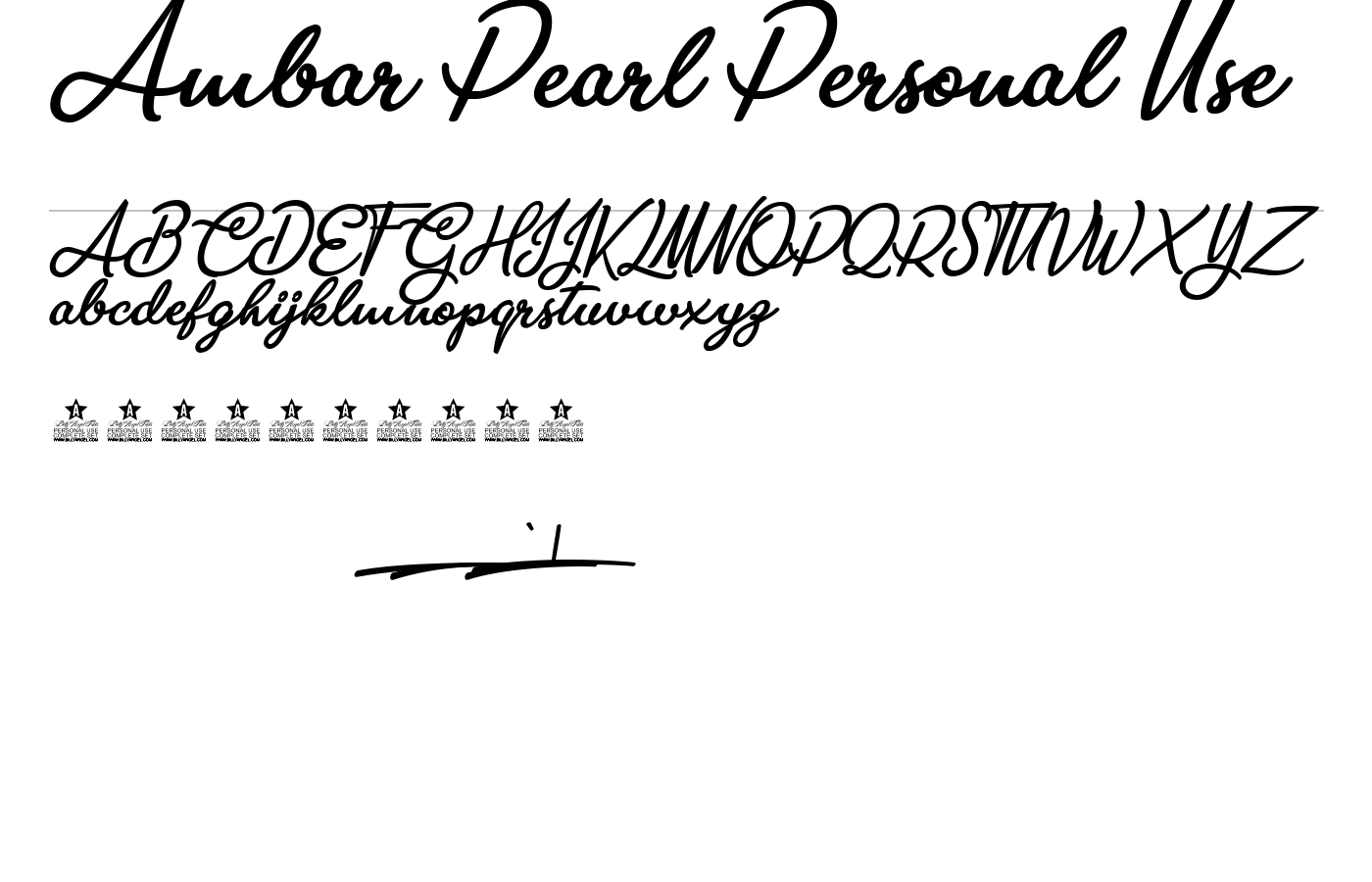
Ambar Pearl Personal Use is an elegant script font with a smooth, flowing style and medium weight, offering a sophisticated handwritten feel. Its slender, connected letterforms and subtle curvature give it a refined yet approachable personality, making it ideal for invitations, branding, and stylish headlines where a touch of graceful charm is desired. This font works best in contexts that seek to convey warmth and elegance without sacrificing readability.
Ambar Pearl Personal Use Font
About Ambar Pearl Personal Use Font